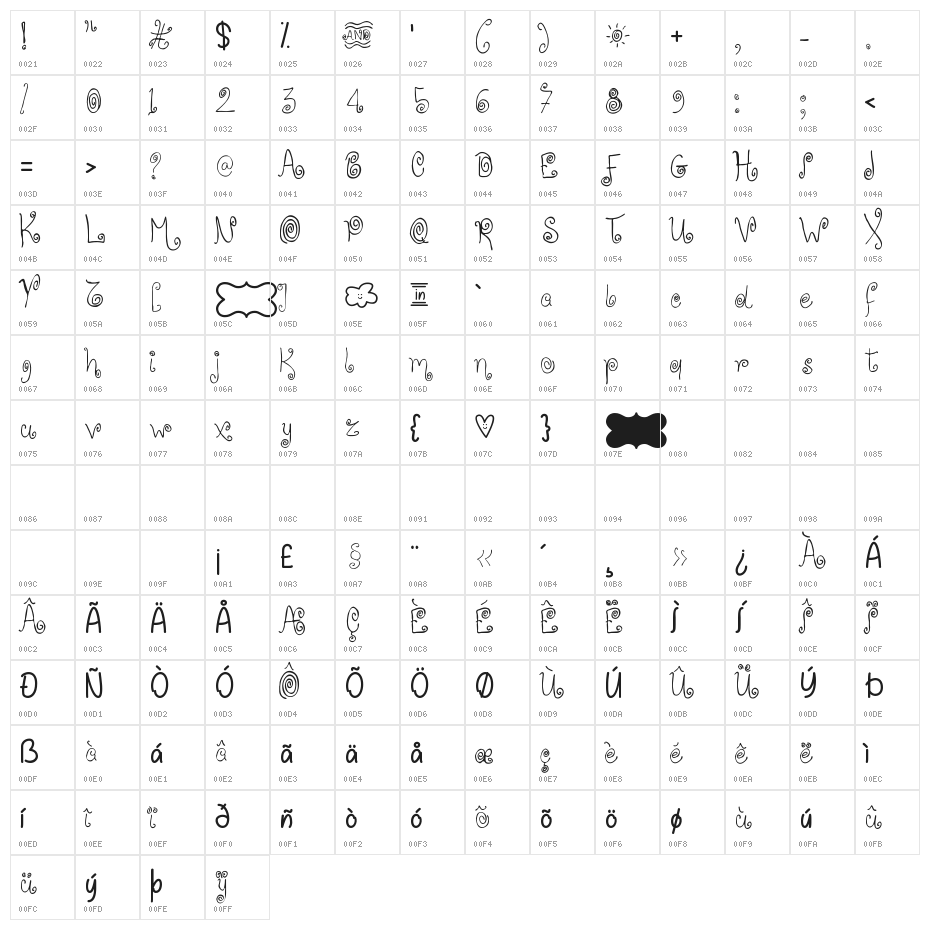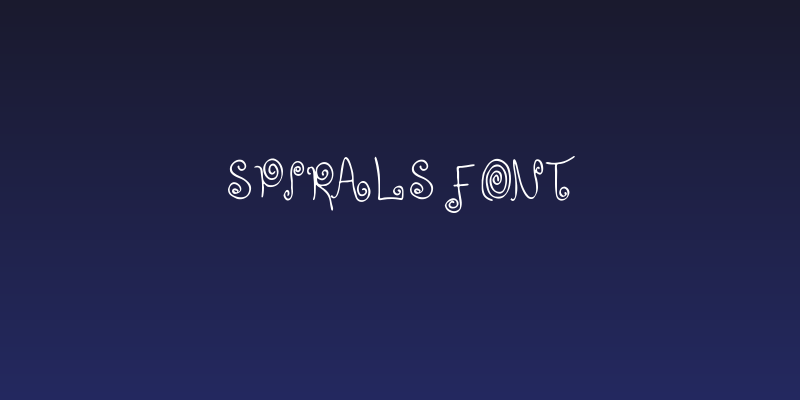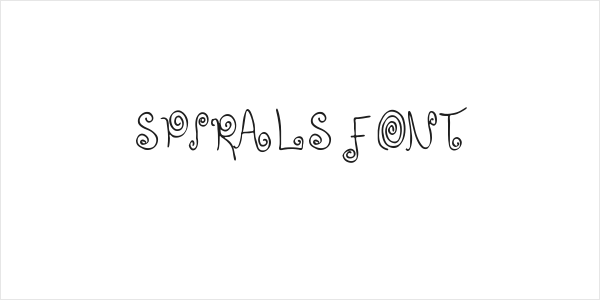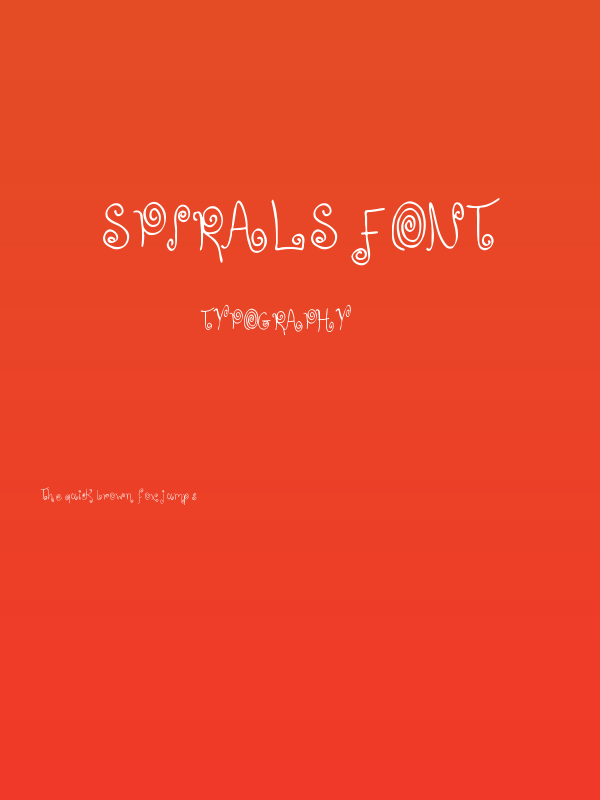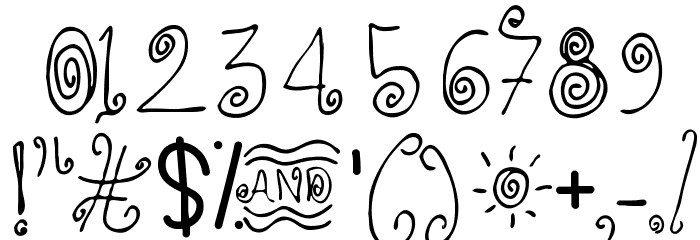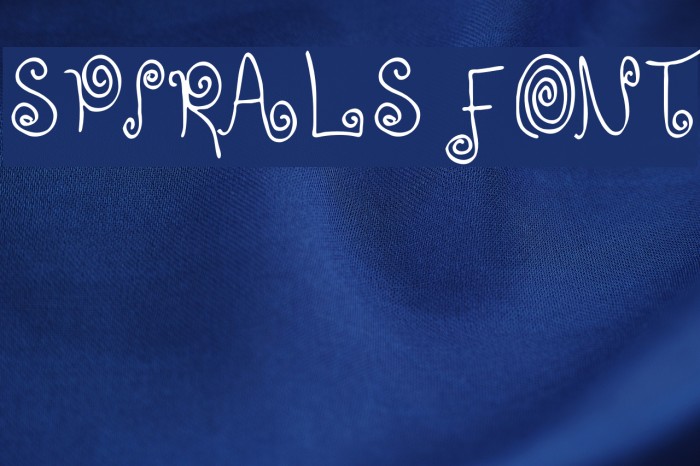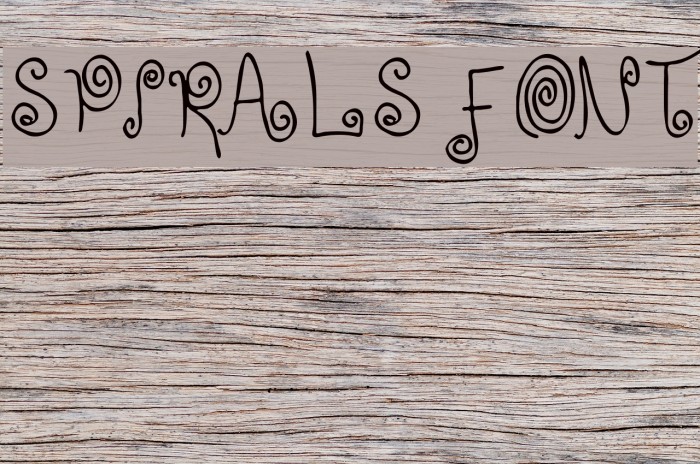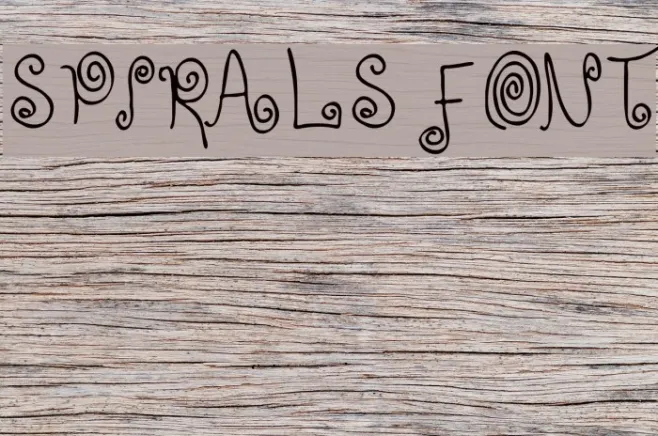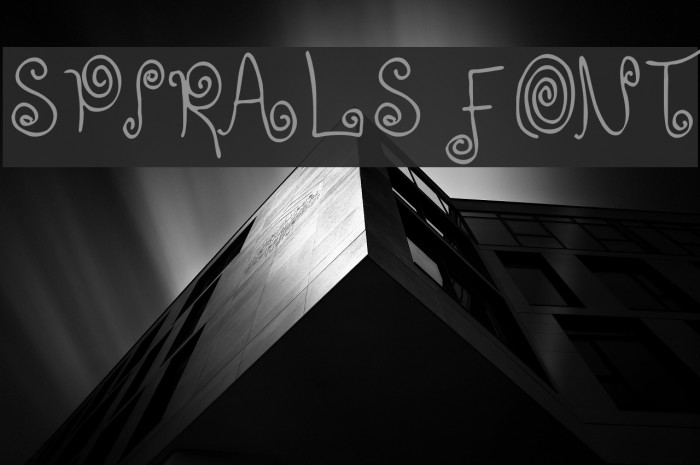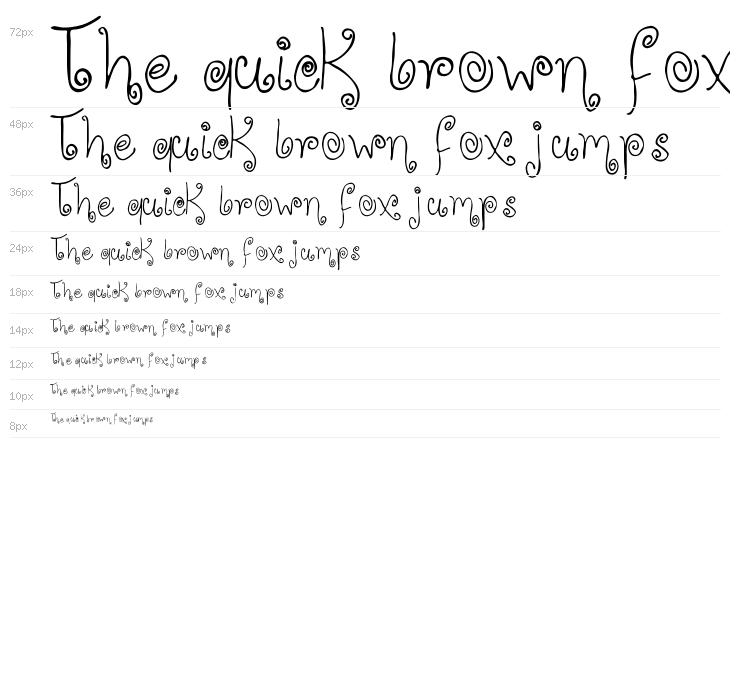
SPIRALS FONT Font
SPIRALS FONT Description
This whimsical and playful font features a distinctive spiral motif integrated into each character, creating a sense of movement and creativity. The letters are crafted with a hand-drawn aesthetic, giving them a unique and artistic flair. The uppercase and lowercase letters maintain a consistent style, with spirals often replacing traditional curves or ends. Numbers and special characters follow the same design principles, ensuring a cohesive look across all elements. The font's decorative nature makes it ideal for projects that require a touch of fun and individuality.
| Proposed Projects | Perfect for children's books, creative posters, party invitations, and artistic branding. |